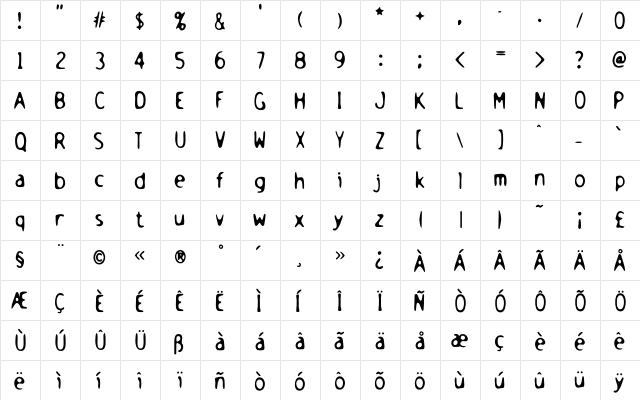
Holstein Regular
Design Context for Holstein Typeface
Holstein is a composed and adaptable typeface that performs quietly and consistently across a wide range of design contexts.